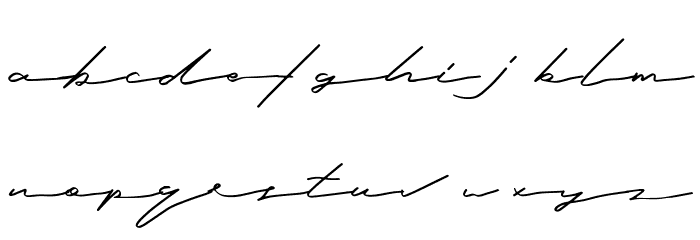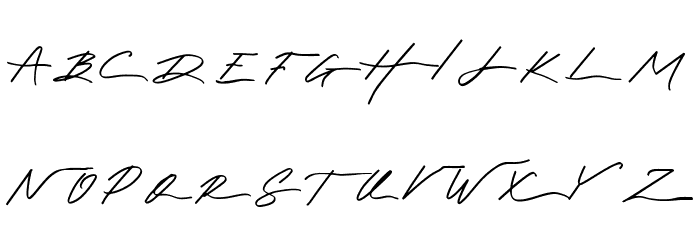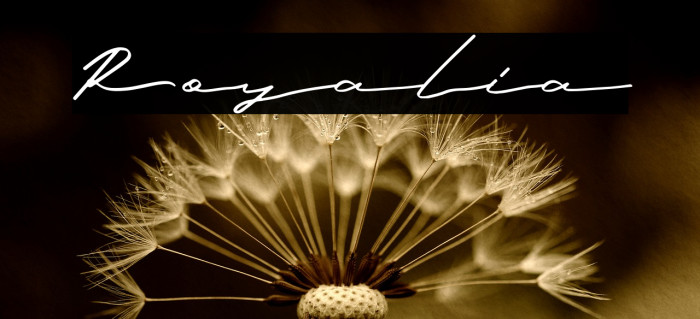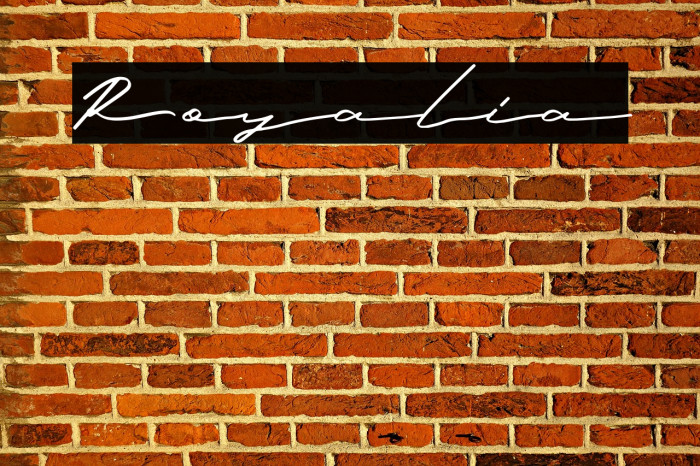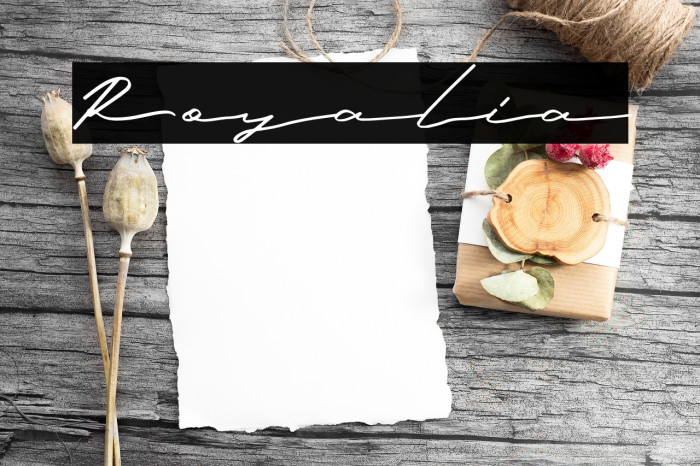
Royalia Font
This font exudes elegance and sophistication with its fluid, cursive style. Each letter is gracefully connected, creating a seamless flow that mimics natural handwriting. The strokes are thin and delicate, giving it a refined and airy appearance. The uppercase letters maintain a consistent height, while the lowercase letters vary slightly, adding a touch of dynamism. The overall impression is one of effortless grace, making it ideal for projects that require a personal, handwritten touch. Its legibility is maintained despite the cursive style, ensuring that it remains functional as well as aesthetically pleasing.
An elegant, cursive font with fluid, connected strokes and a refined appearance.
- Proposed Projects: Ideal for wedding invitations, personal letters, branding for luxury products, and elegant event signage.
- Category: Script
- Weight: Light
- Character Spacing: Tight
- Overall Style: Elegant
- Use Case: Logos, Invitations, Personal Correspondence